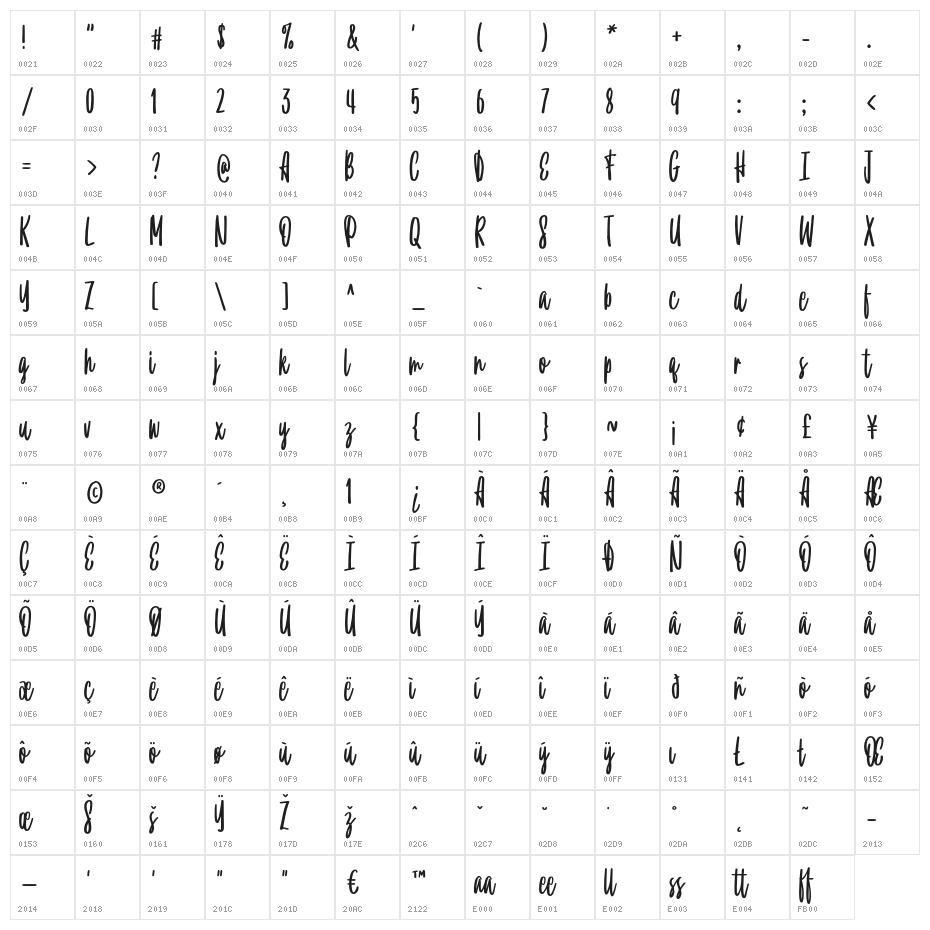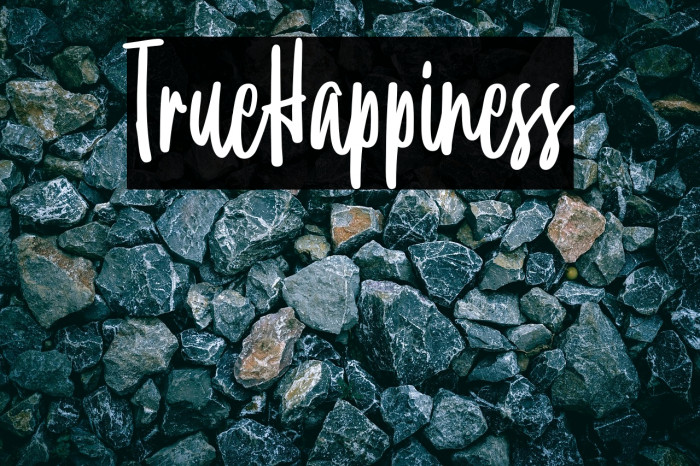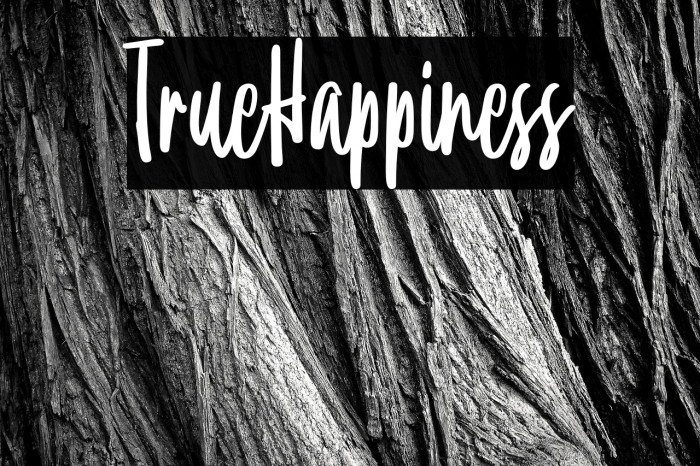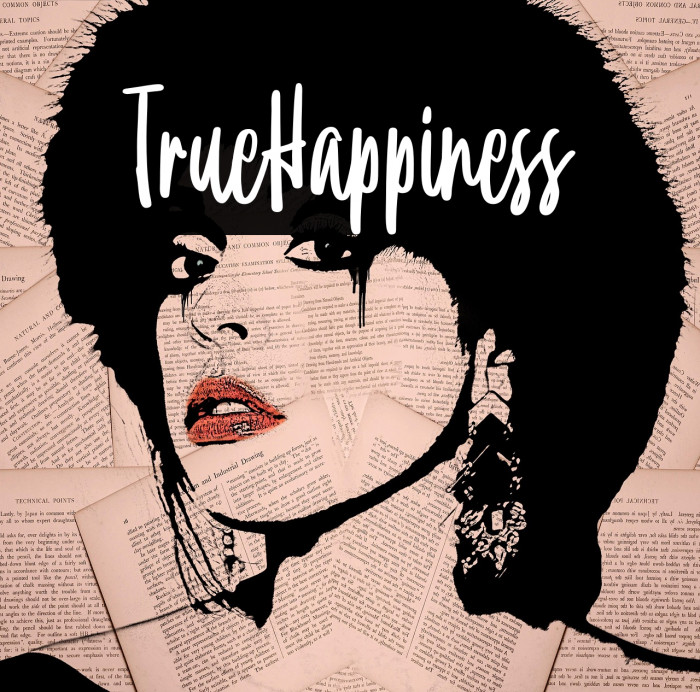
TrueHappiness Font
| Stile generale | Casual, Playful |
| Caso d'uso | Headlines, Logos, Social Media |
| Progetti proposti | Ideal for greeting cards, invitations, social media graphics, and branding materials that require a personal and creative touch. |